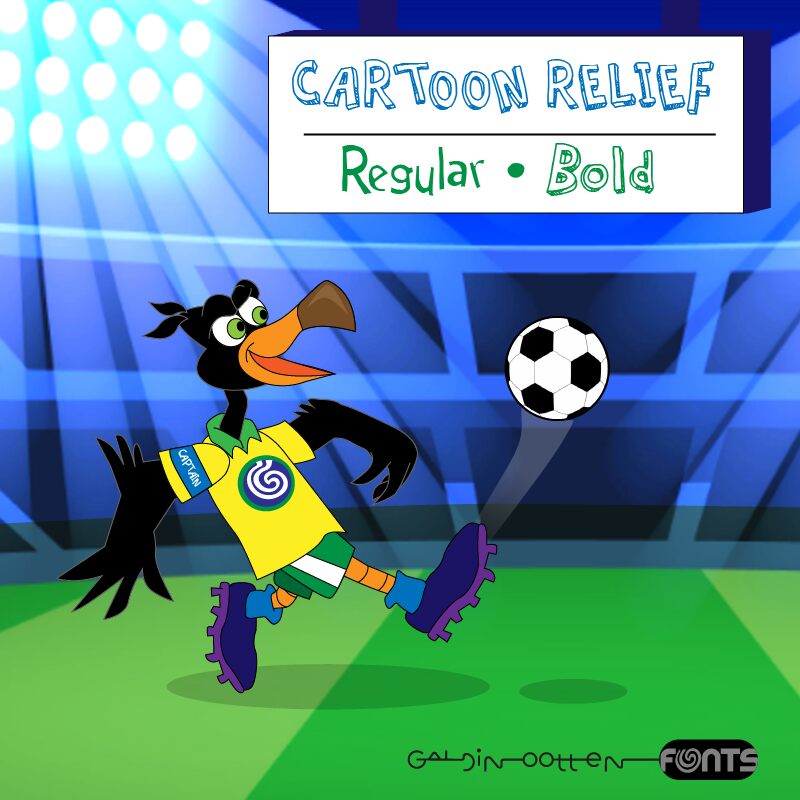
Cartoon Relief Bold
Cartoon Relief Bold by Galdino Otten Fonts encapsulates playful creativity with its 3D cartoon style. Each character pops with bold, engaging outlines that draw immediate attention, imparting an unmistakable sense of fun and whimsy. Perfect for display purposes, its dynamic and lively aesthetic makes it ideal for children's books, comic strips, and playful branding materials.
The exaggerated weight of Cartoon Relief Bold ensures your designs stand out, creating a distinct visual impact that is both charming and memorable. The font's animated essence adds a spirited touch to any project, making it a go-to choice for designers looking to inject humor and energy into their work. Whether crafting vibrant posters or eye-catching headlines, Cartoon Relief Bold promises to transform your text into an entertaining visual delight.